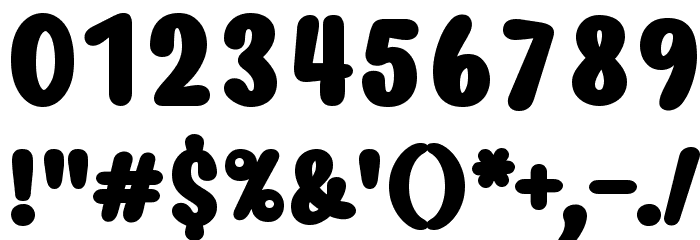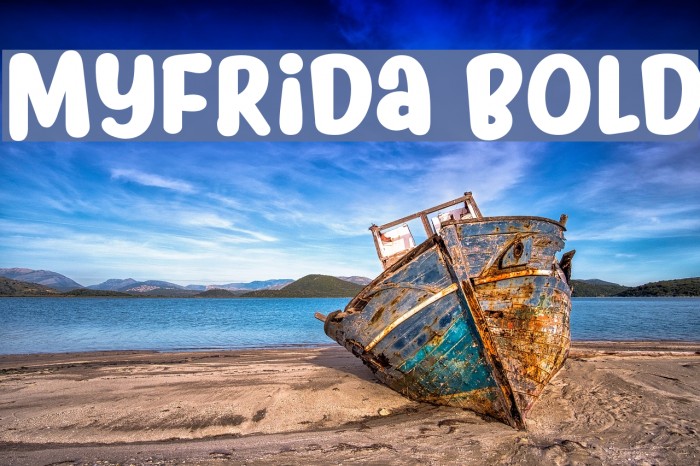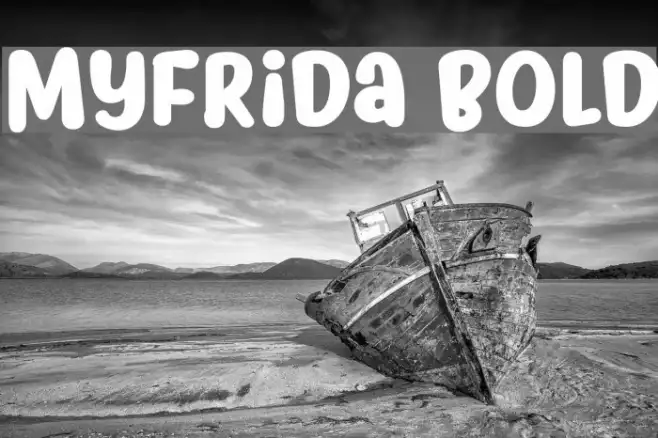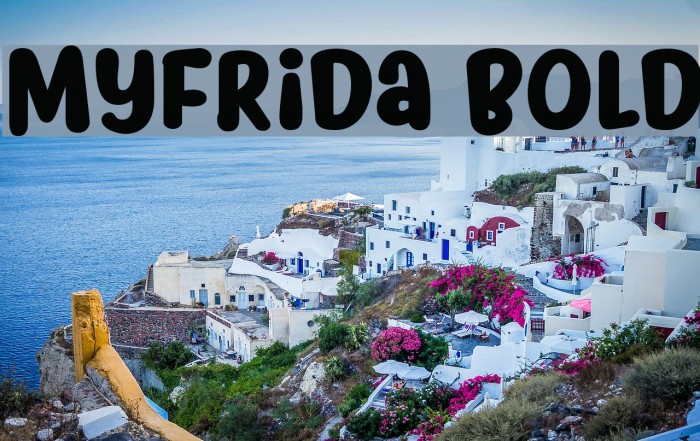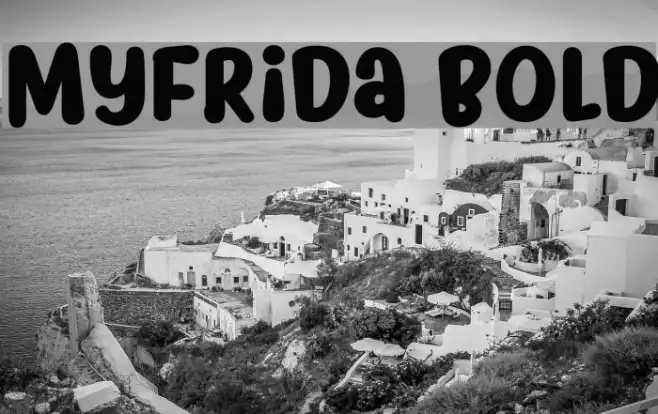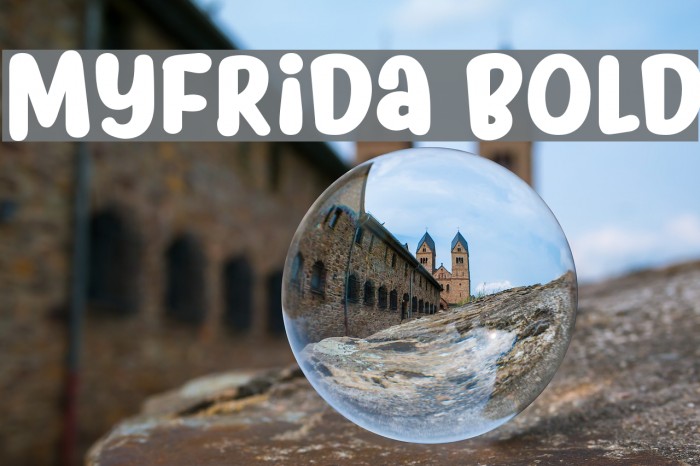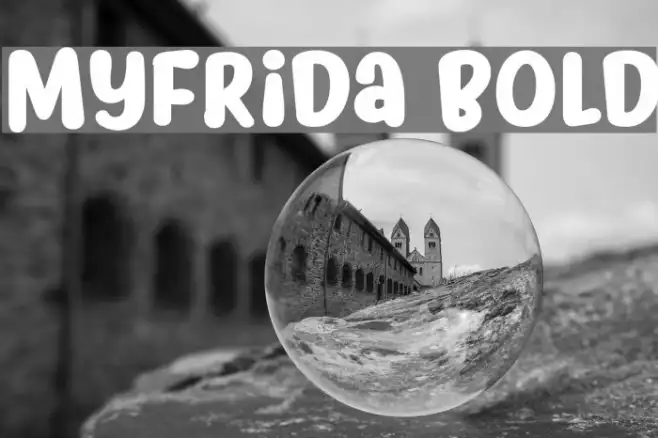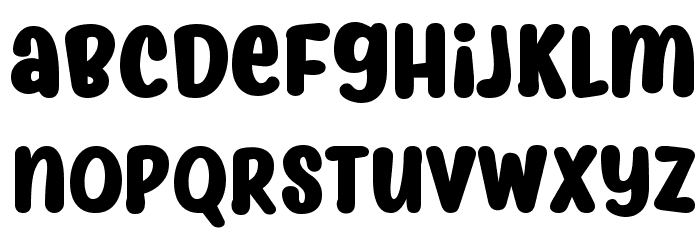
Myfrida Bold Font
This font features a bold and playful style with rounded edges and a slightly irregular form, giving it a friendly and approachable appearance. The characters are thick and robust, making them highly legible and impactful. The uppercase and lowercase letters maintain a consistent weight, while the numbers and special characters complement the overall design with their rounded and slightly whimsical shapes. This font exudes a sense of fun and creativity, making it ideal for projects that require a lively and engaging visual presence.
A bold, playful font with rounded edges and a friendly style.
• Proposed Projects: Ideal for children's books, playful branding, posters, and creative social media graphics.
• Category: Decorative/Display
• Contrast: Low
• Overall Style: Playful, Creative
• Use Case: Headlines, Logos, Posters